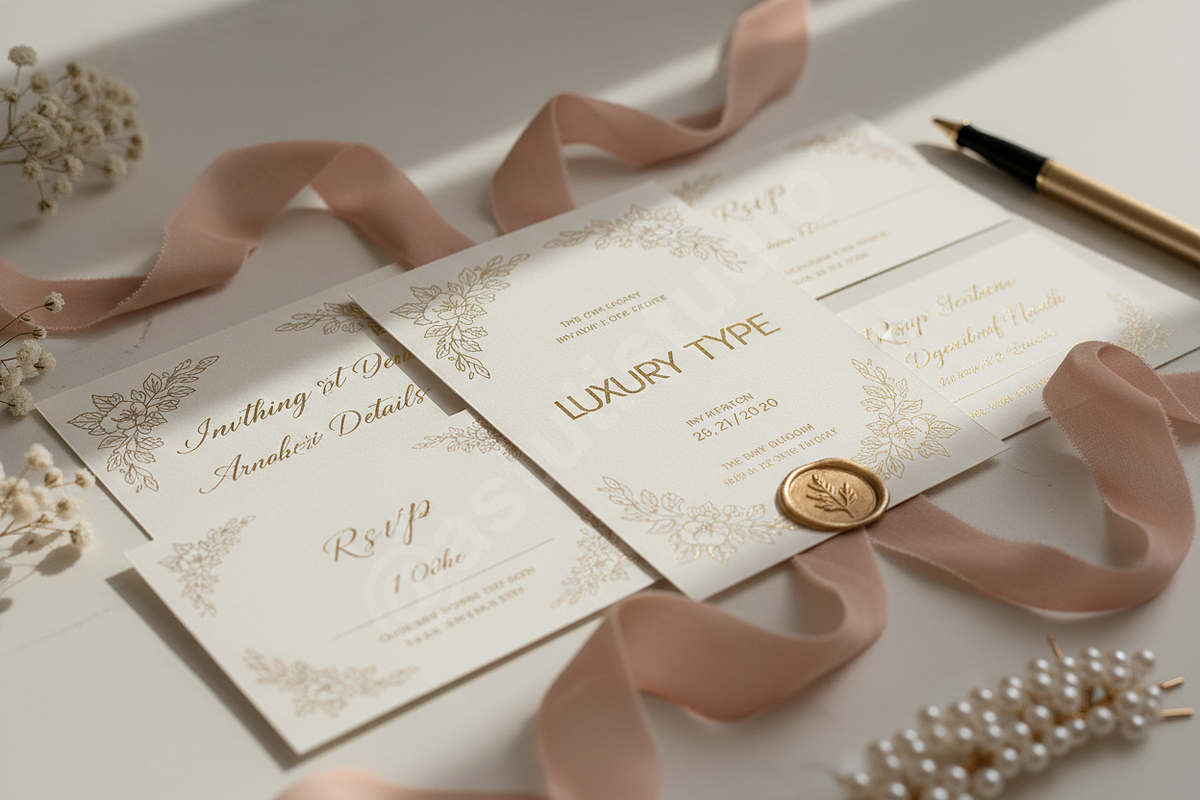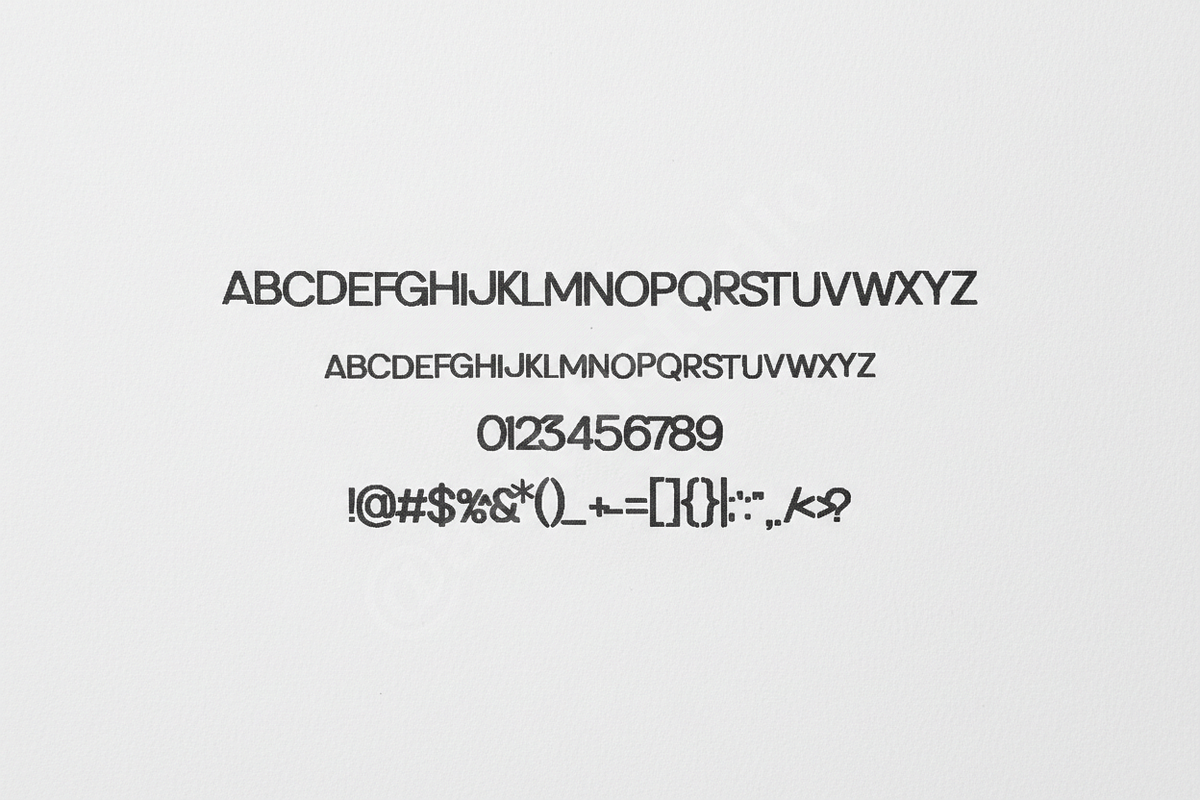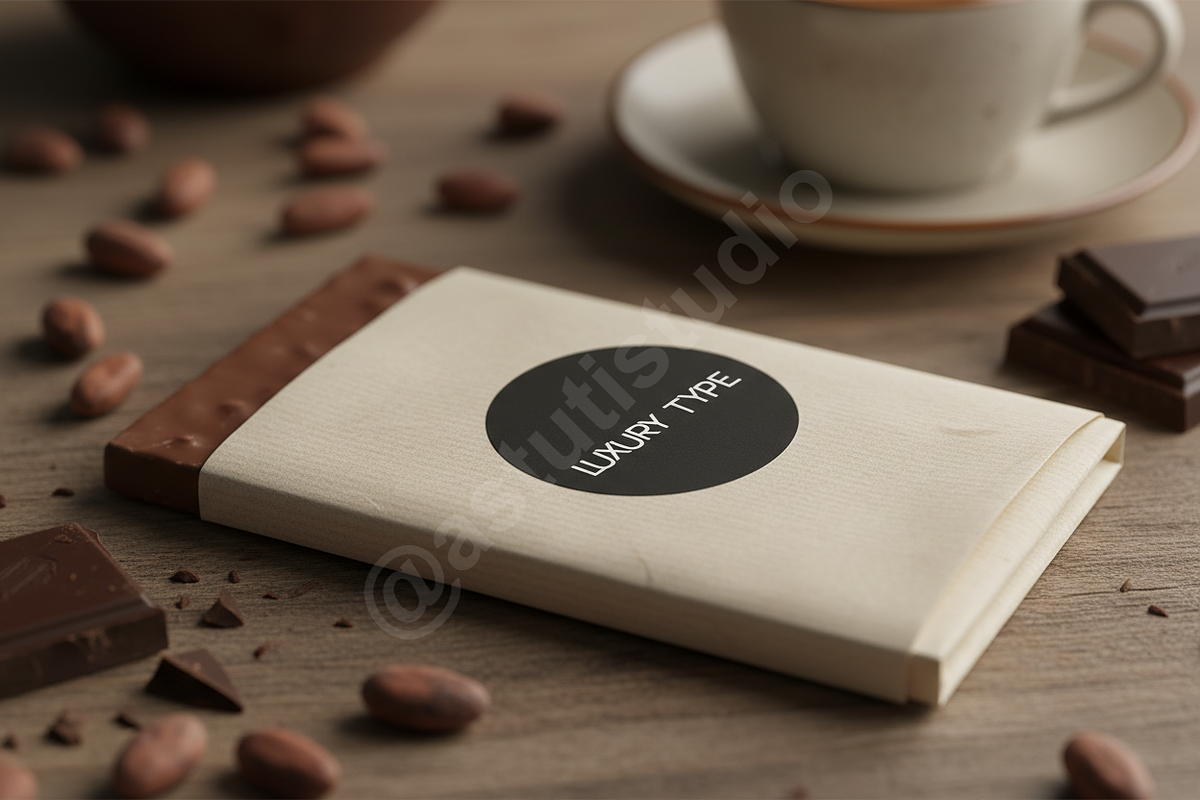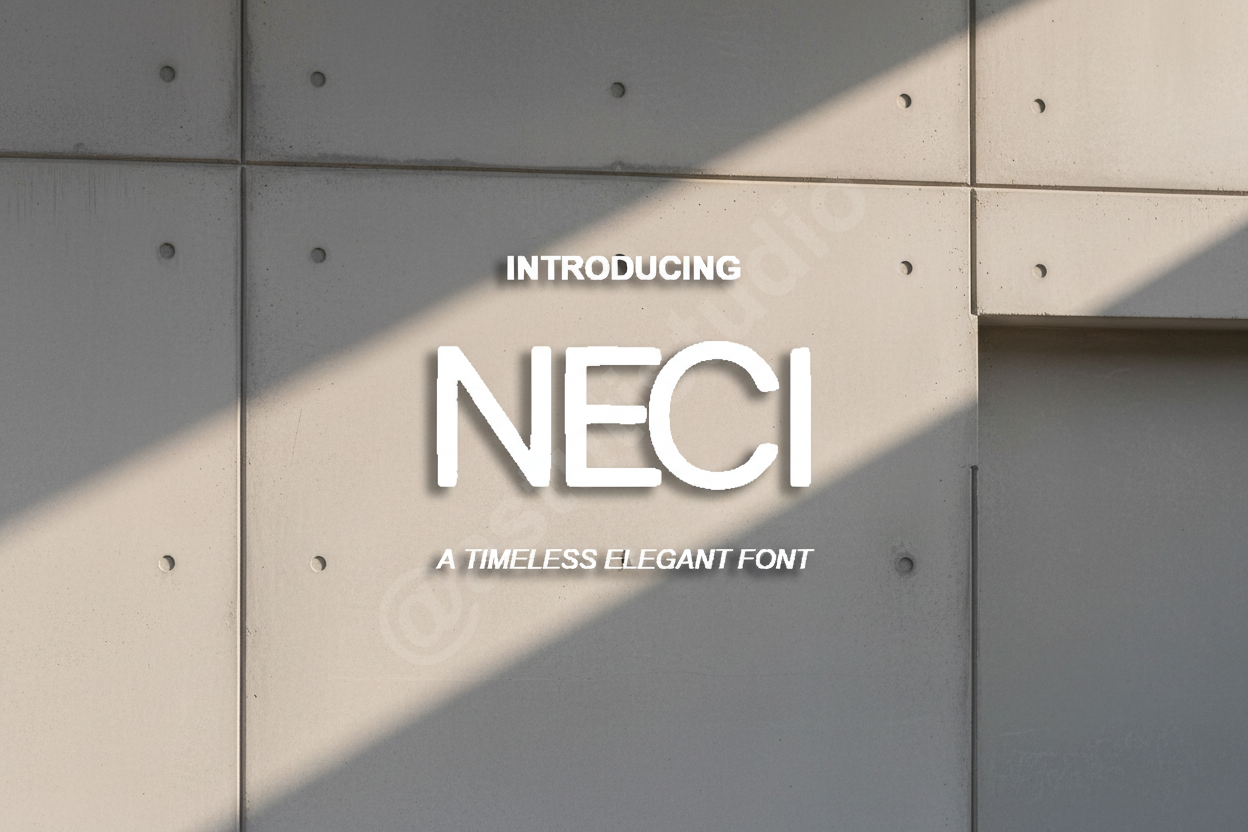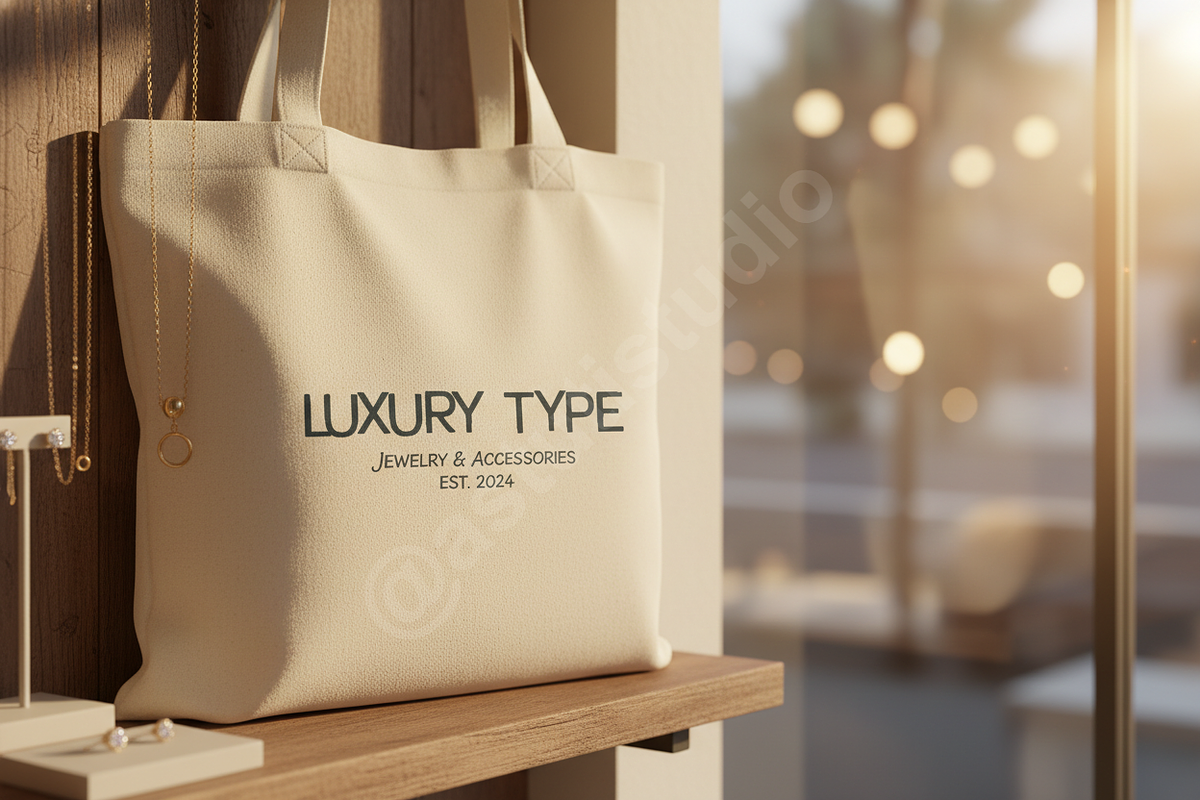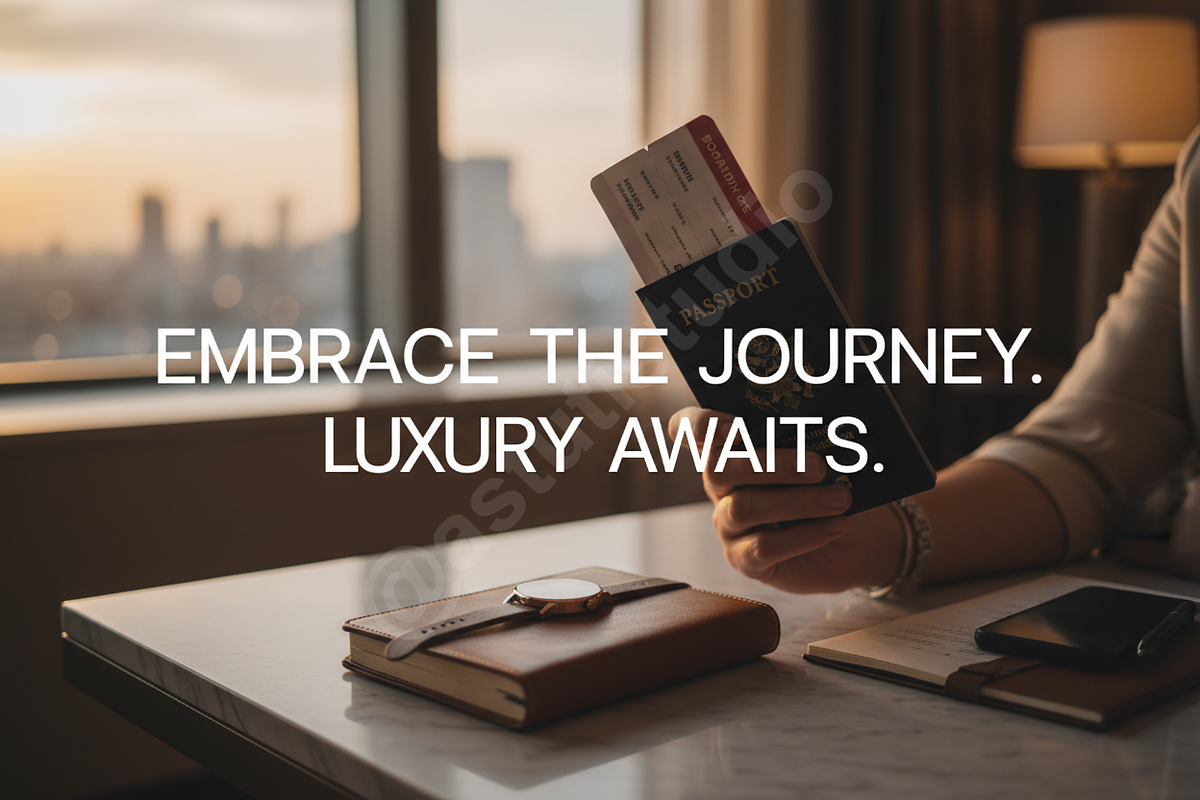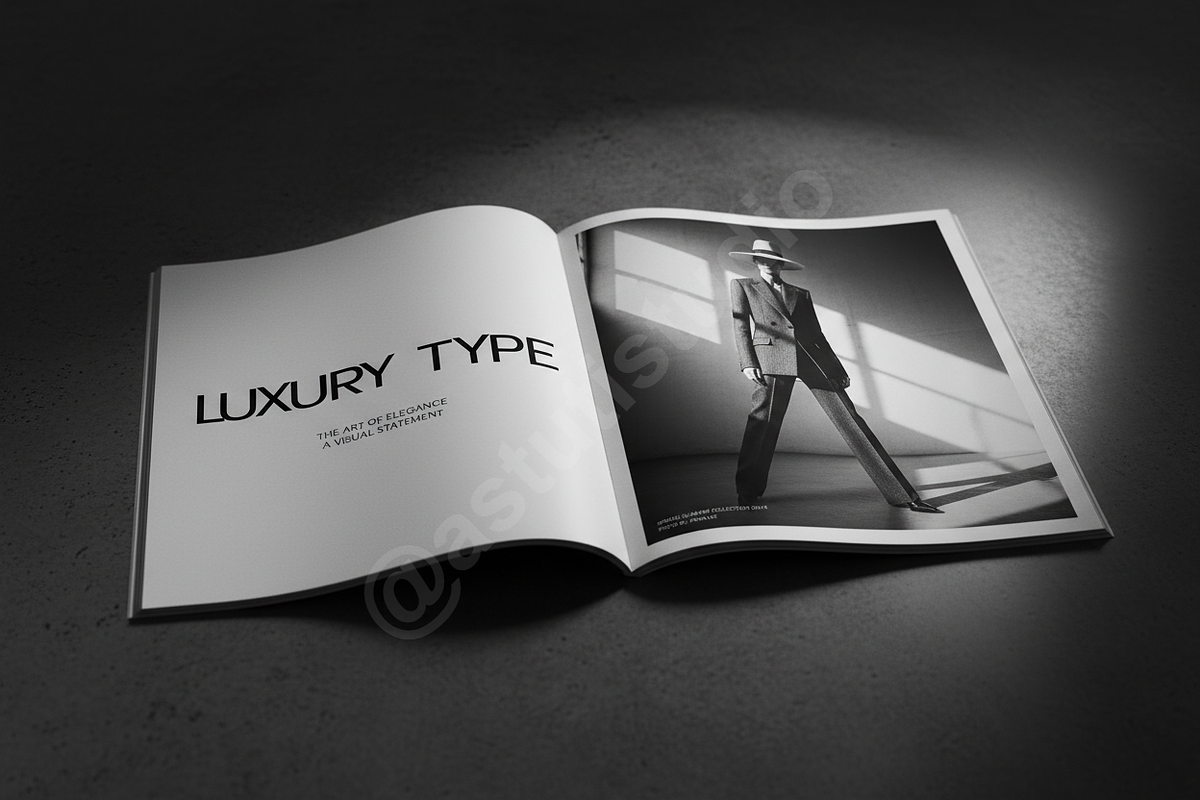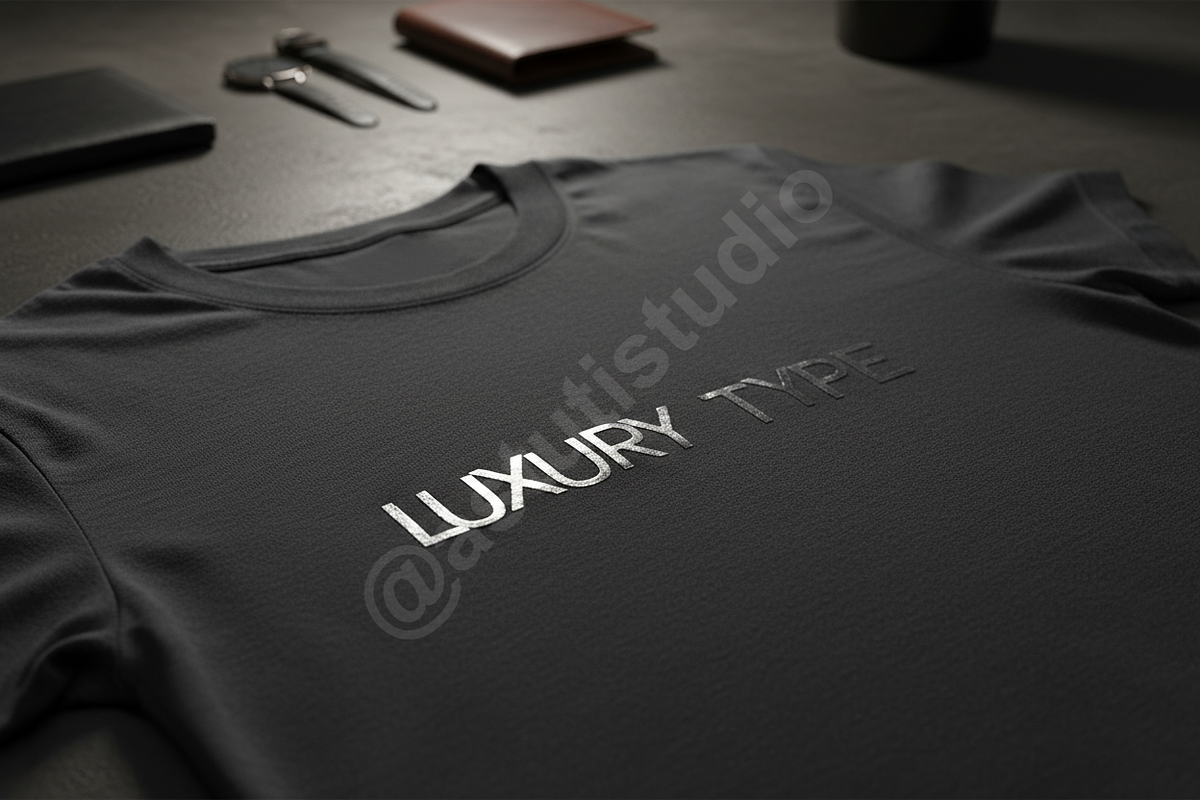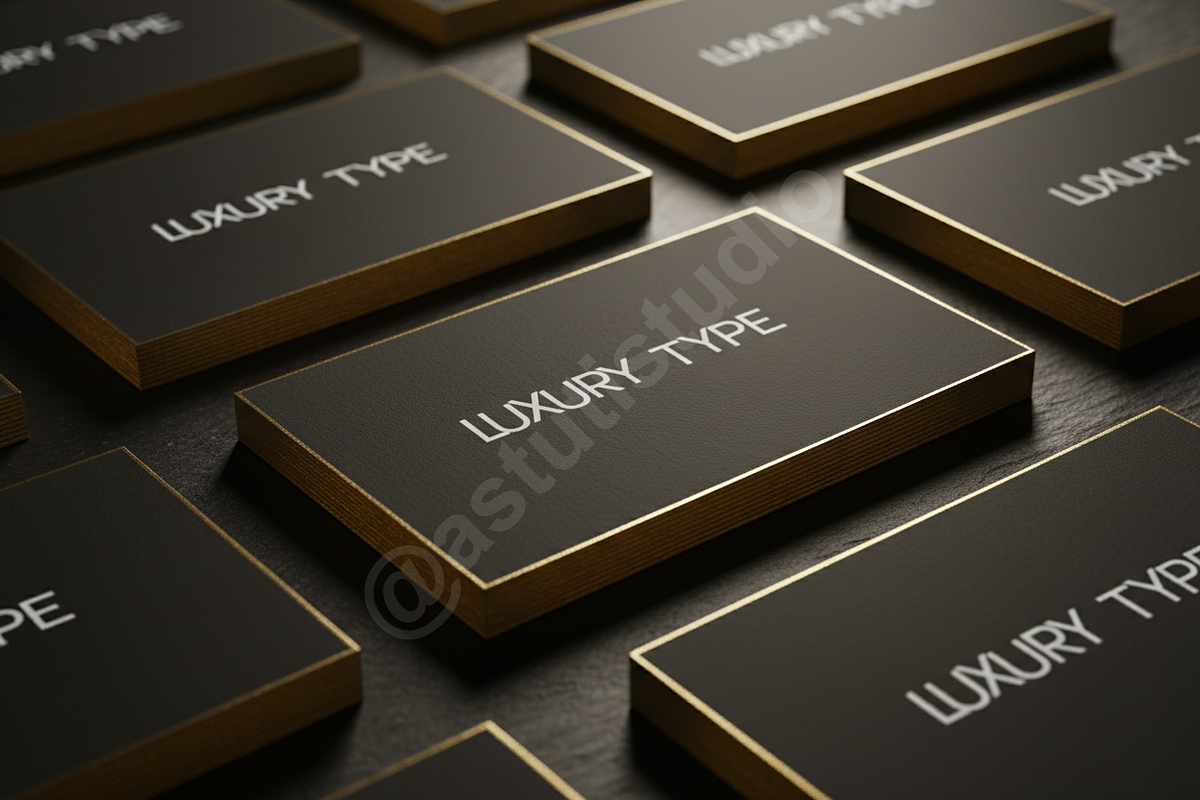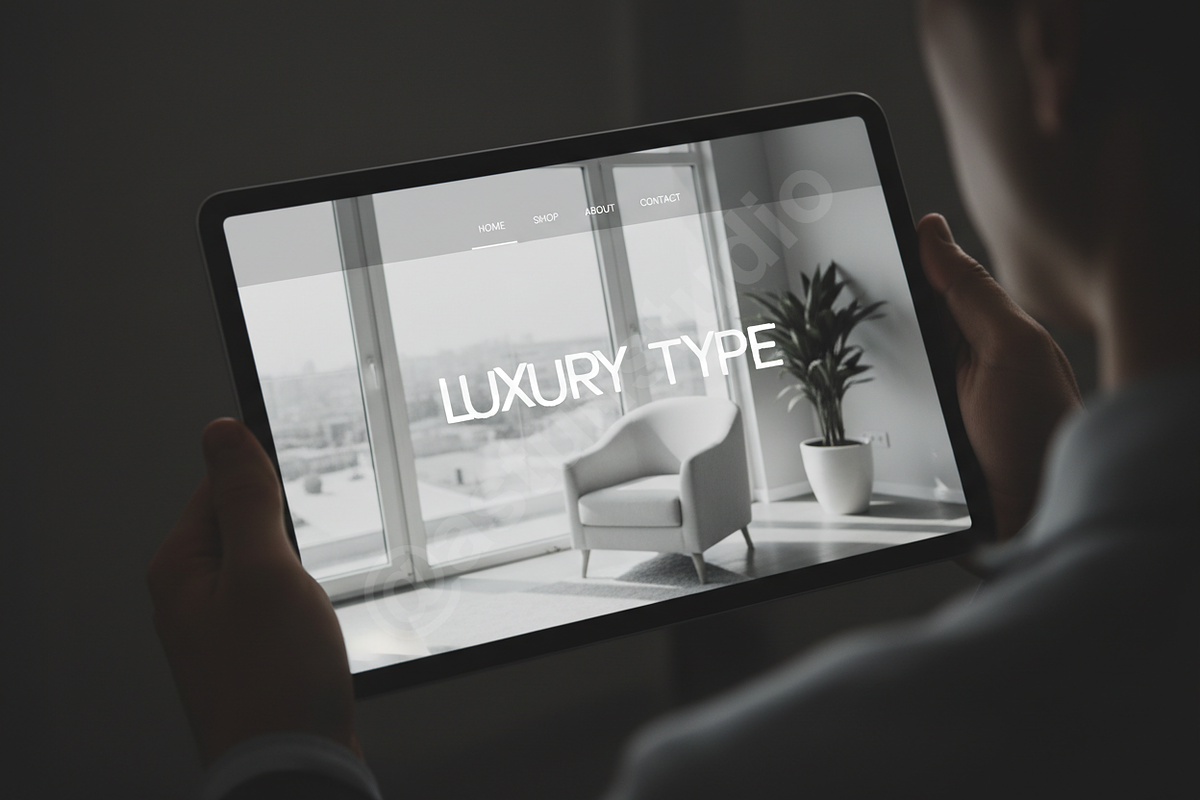
Neci - Elegant Modern Serif Typeface
Introduction: Neci is a sophisticated and refined serif font designed for high-end aesthetics. Drawing inspiration from timeless editorial design, this typeface balances classic proportions with contemporary details. It is the perfect choice for luxury branding, high-fashion magazine layouts, and premium social media content that requires a touch of understated elegance.
- Clean and balanced character set
- Sophisticated ligatures for unique letter combinations
- Full multilingual support for global projects
- High-contrast strokes for a premium visual impact
- Optimised for both digital and print media